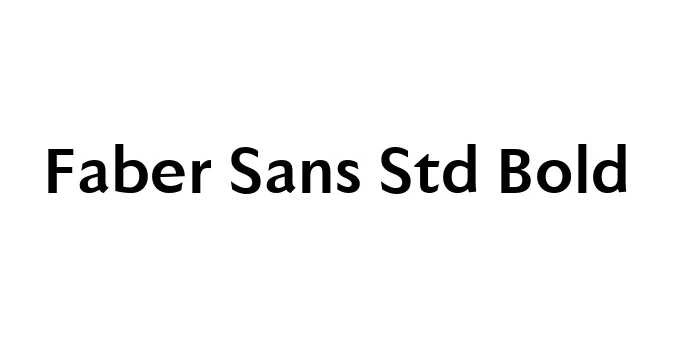
Faber Sans Std Bold
Designed by Nils Thomsen
Faber Sans Std Bold is a contemporary sans-serif typeface designed with a focus on geometric clarity and functional elegance. Developed by Nils Thomsen, the font family bridges the gap between mechanical precision and humanistic approachability. The Bold weight is specifically engineered to provide a commanding presence on the page, utilizing thick strokes and balanced proportions to maintain high legibility even in crowded layouts.
This typeface is part of a larger system that prioritizes versatility across different media. Its clean apertures and stable baseline make it an excellent choice for professional environments ranging from architectural signage to digital user interfaces. As a 'Standard' (Std) version, it includes a robust set of characters that support various European languages, making it a reliable tool for global branding initiatives and sophisticated editorial design.
Faber Sans Std Bold Best Uses
Ideal for strong, attention-grabbing titles in magazines and posters.
Provides a clean and trustworthy look for logos and business documentation.
Excellent for high-impact messaging in both print and digital marketing.
Highly legible for hero sections and navigation menus.